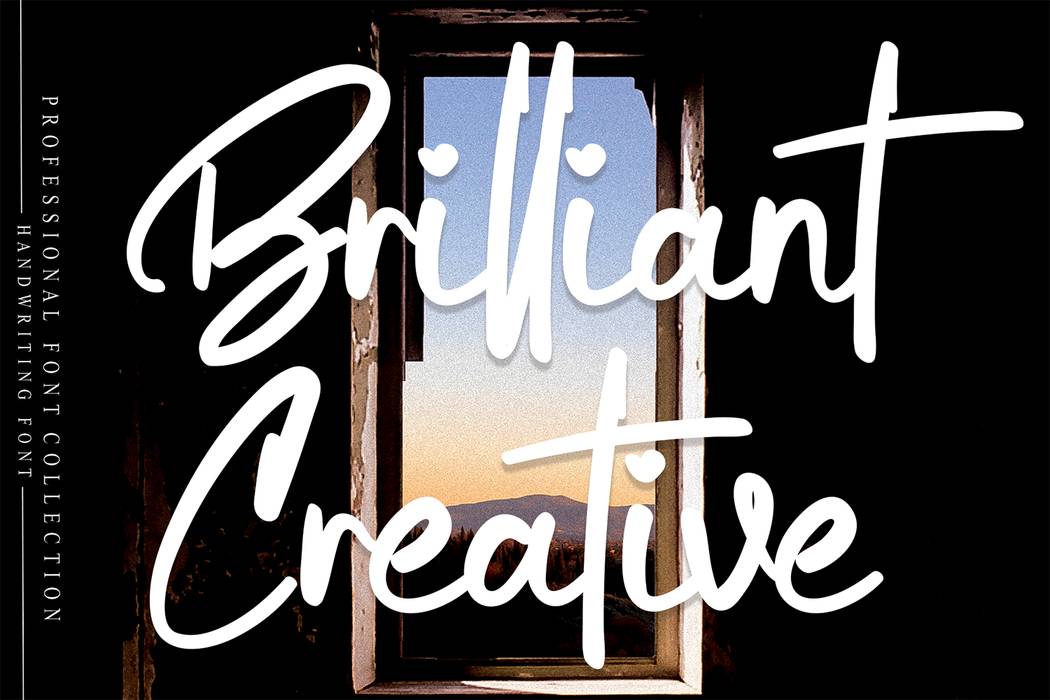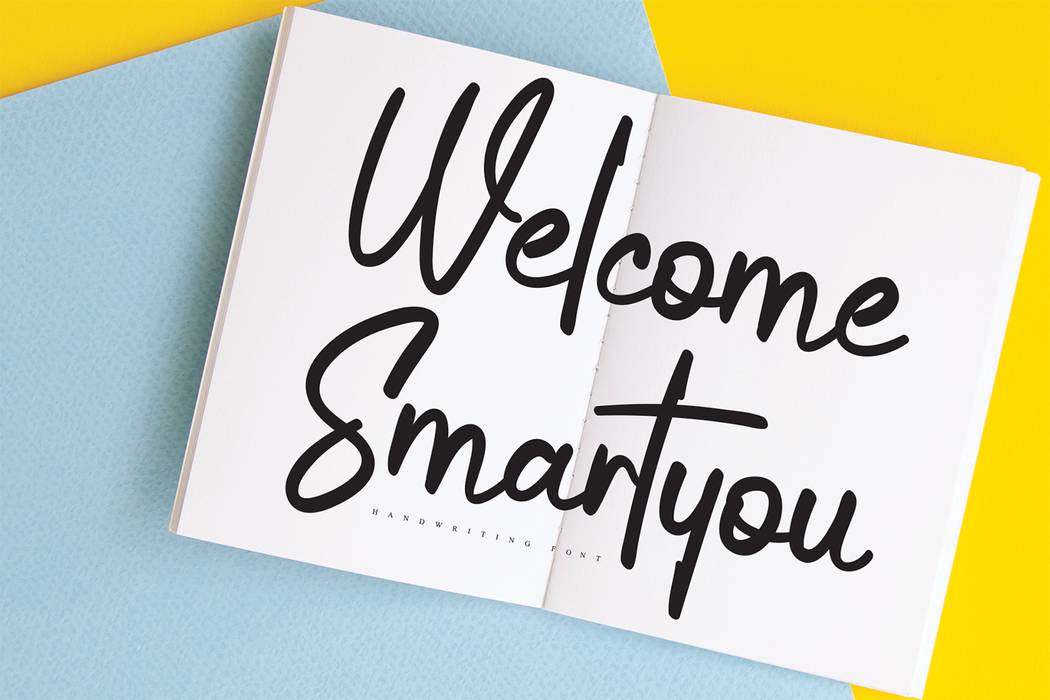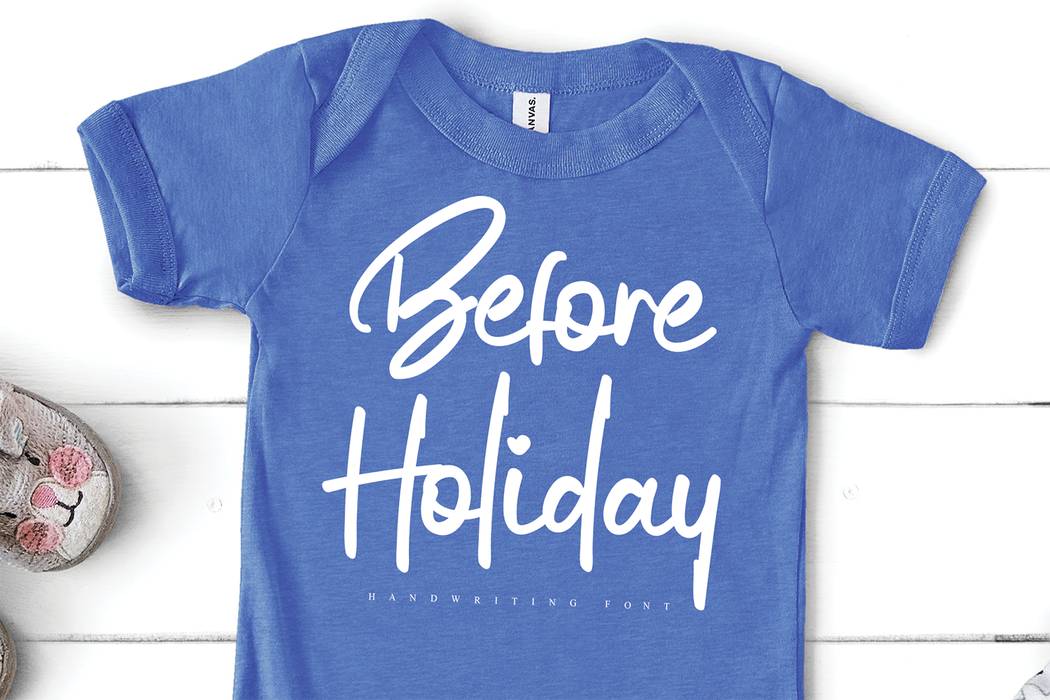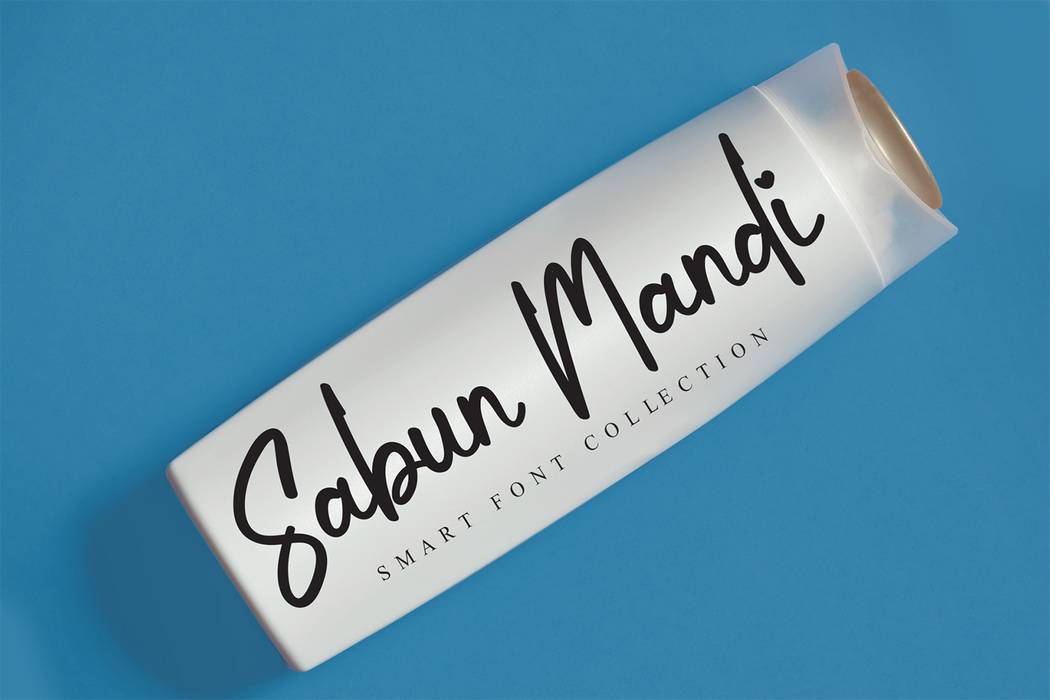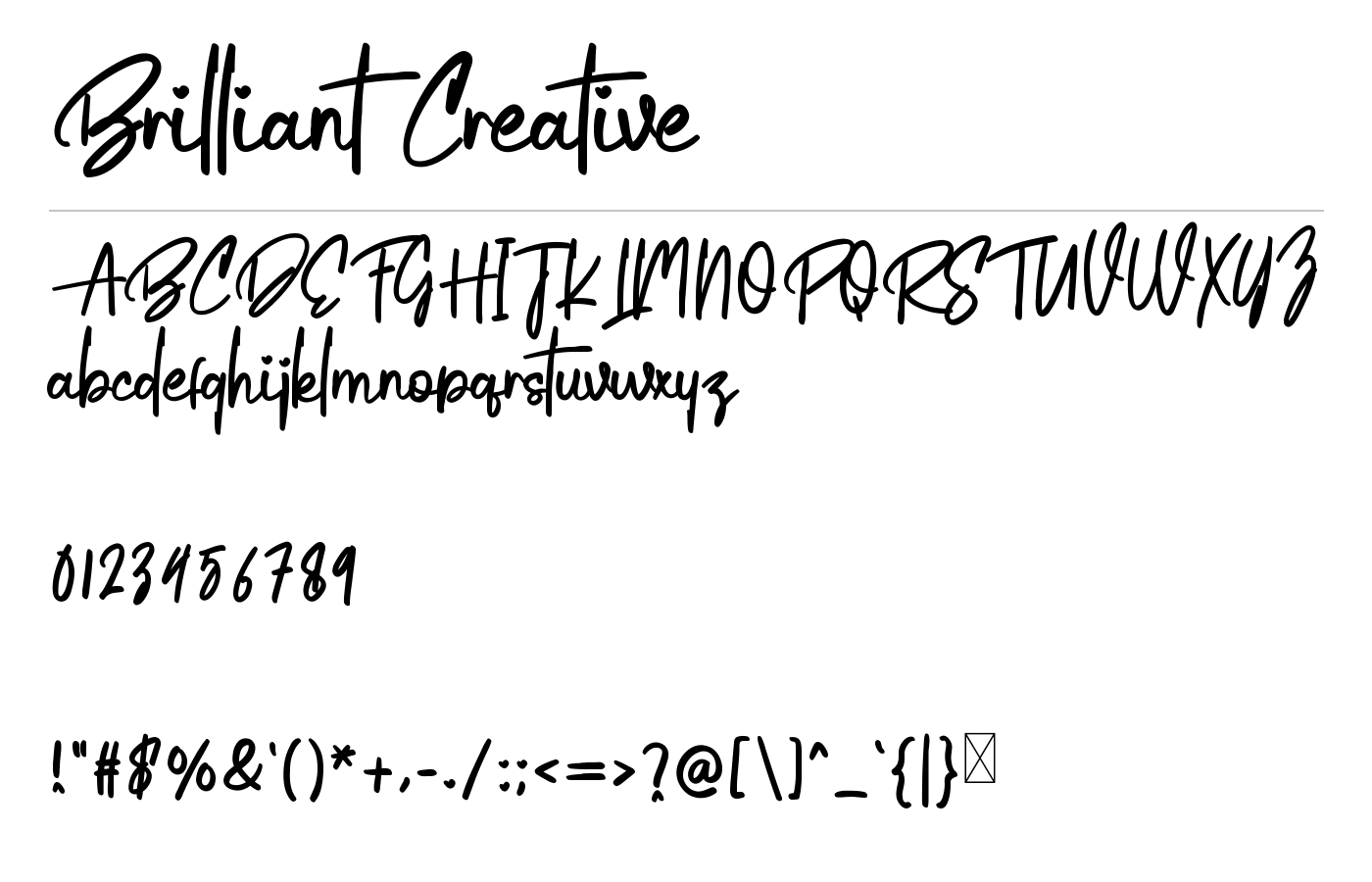
Brilliant Creative Font is a lively and modern script typeface with a casual, handwritten feel that adds a personal and artistic touch. Its tall, narrow letterforms with natural irregularities and playful heart-shaped dots make it perfect for creative branding, invitations, and social media, where an approachable yet unique style is desired. This font works best in headlines and logos, giving any design a fresh, friendly, and expressive personality.
Brilliant Creative Font
About Brilliant Creative Font